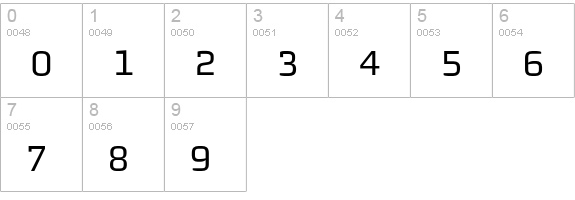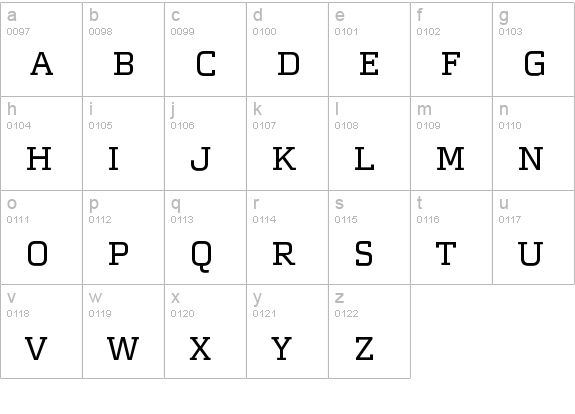
Introducing MorganAvec RegularCaps font, a modern and versatile typeface that strikes the perfect balance between elegance and readability. With its clean lines and sophisticated appeal, this font is ideal for a wide range of design projects, from branding to editorial layouts. The bold and distinctive letterforms of MorganAvec RegularCaps exude confidence and style, making it a go-to choice for designers looking to make a statement. And the best part? MorganAvec RegularCaps is completely free to download at FontsMarket.com! Whether you're working on a personal project or a client's design, this font offers endless possibilities to bring your creative vision to life. Don't miss out on the opportunity to enhance your designs with the timeless charm of MorganAvec RegularCaps. Download it today and start creating stunning visuals that stand out from the crowd.